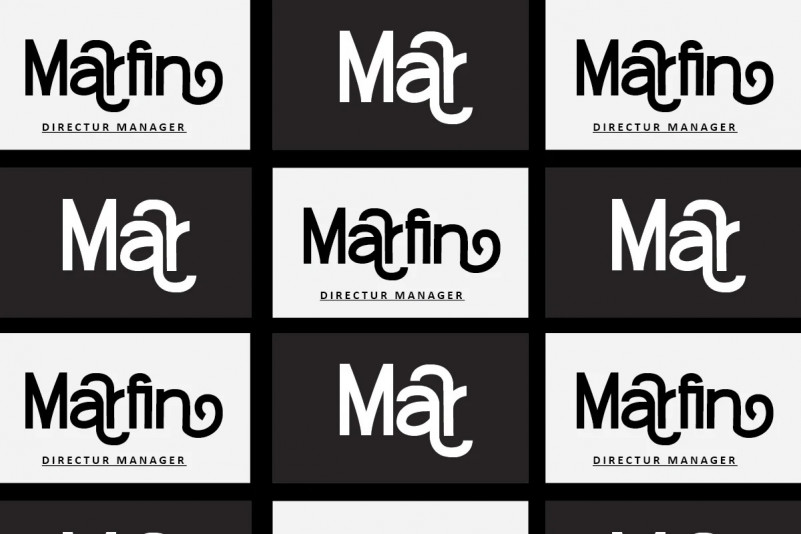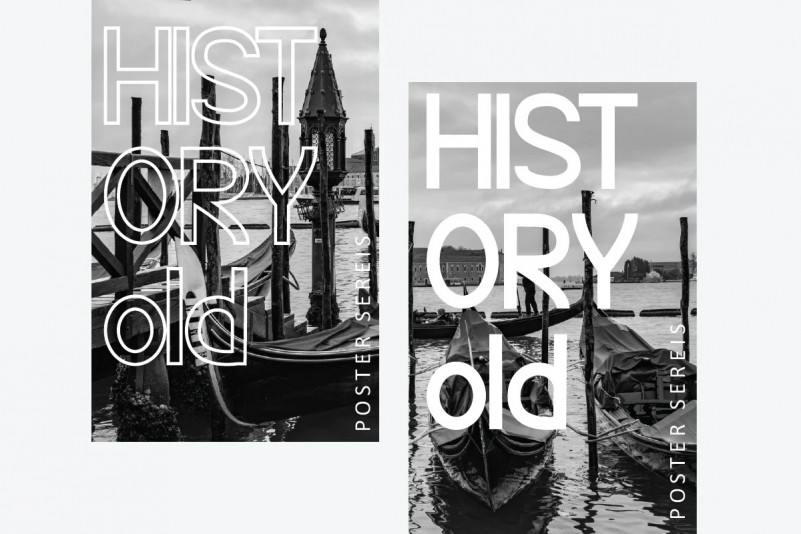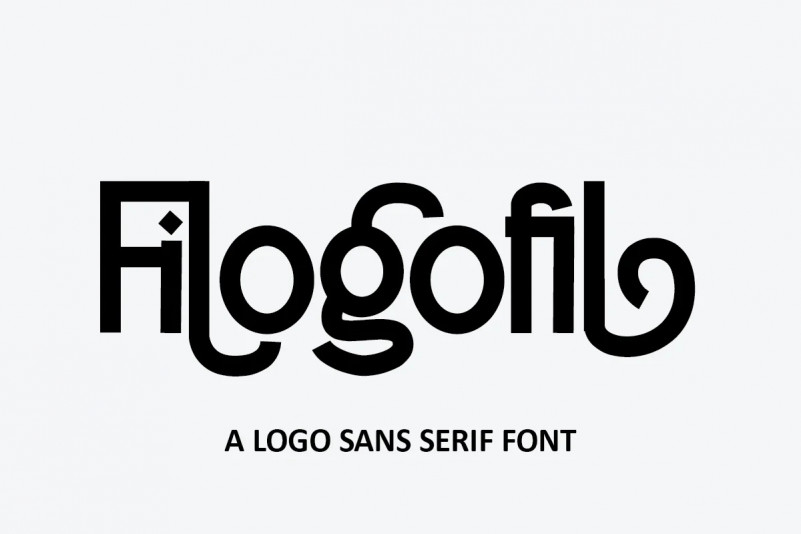
Filogofil Font
Filogofil Sans Serif Font is a sophisticated type of sans serif logo font. Inspired by a mix of logos and philosophies, a solid, uncompromising style can be felt through controlled letterforms and a modern twist. A balance of hard lines and smooth curves.Filogofil are perfect for logo projects and great for any design project